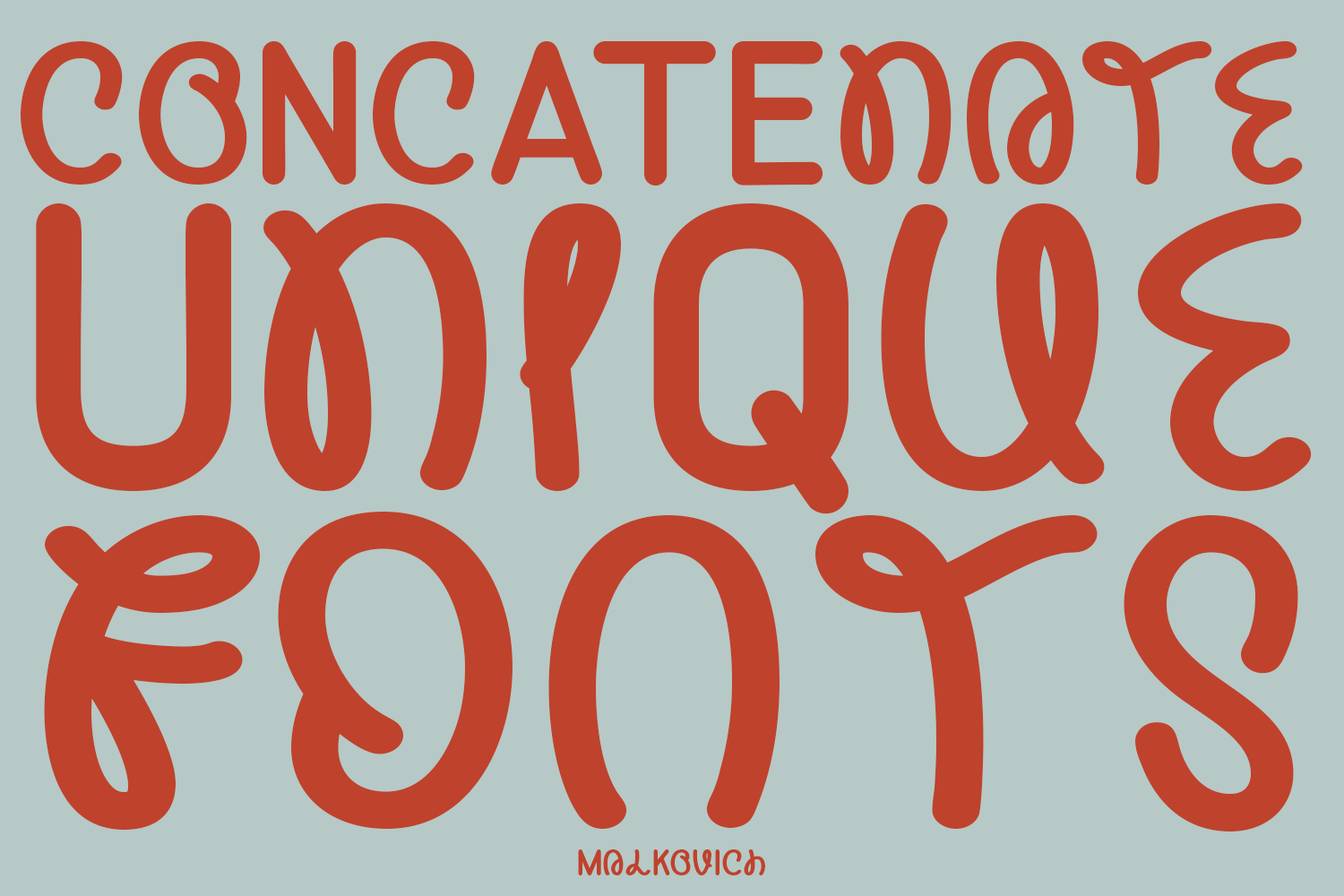
Malkovich Font
Malkovich Display Font is a clean and simple handwritten font. It is perfect for product packaging, branding project, magazine cover, social media, wedding, or just used to express words above the background.